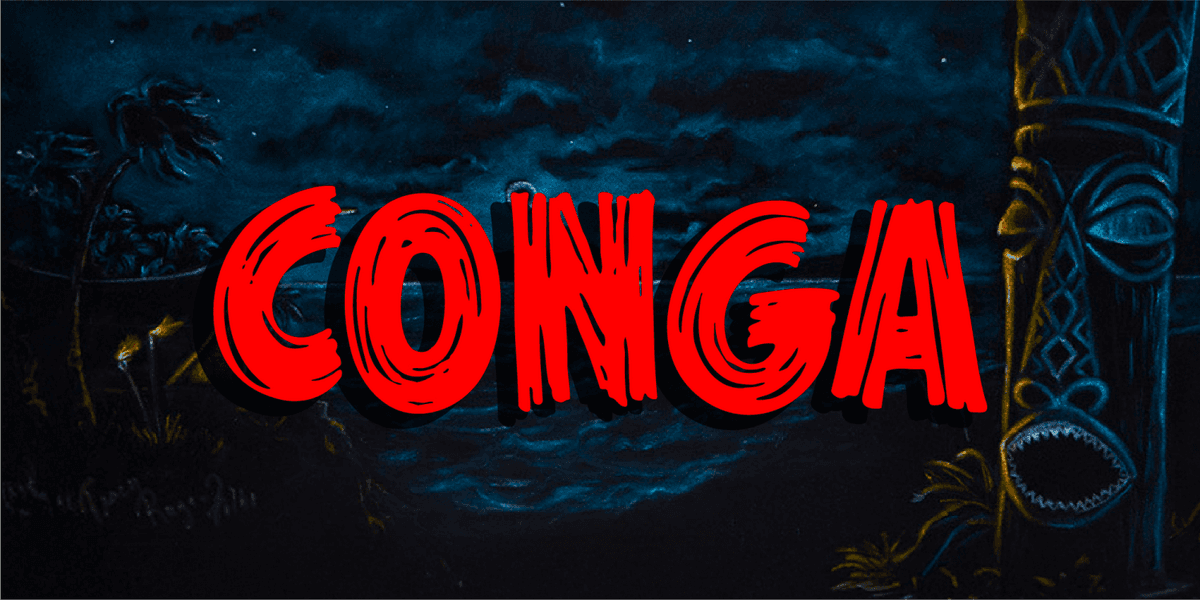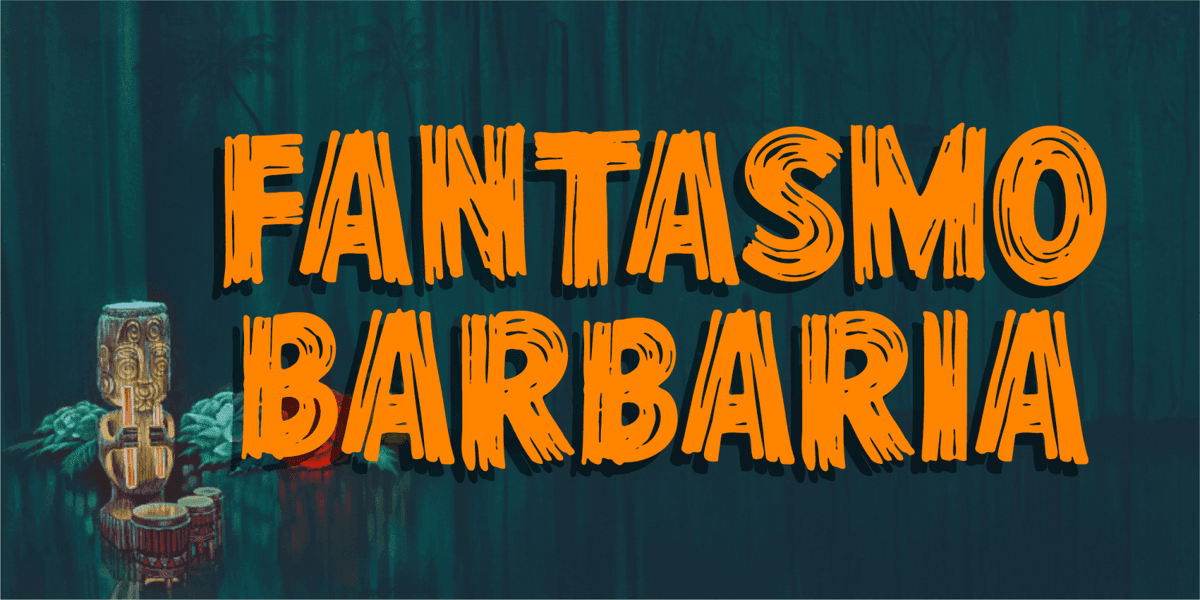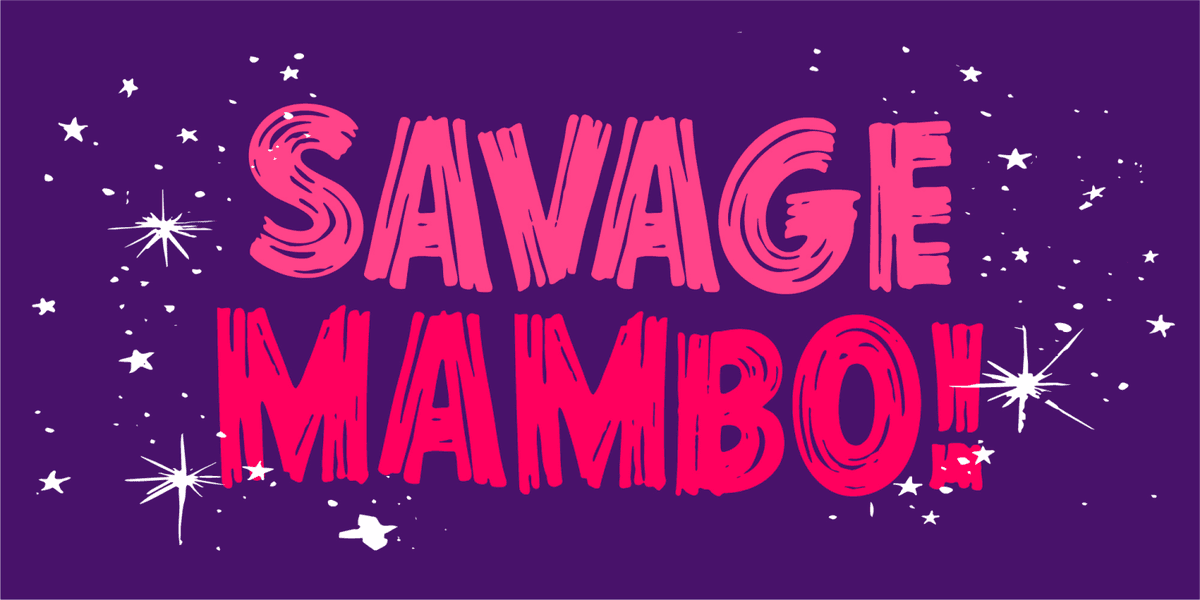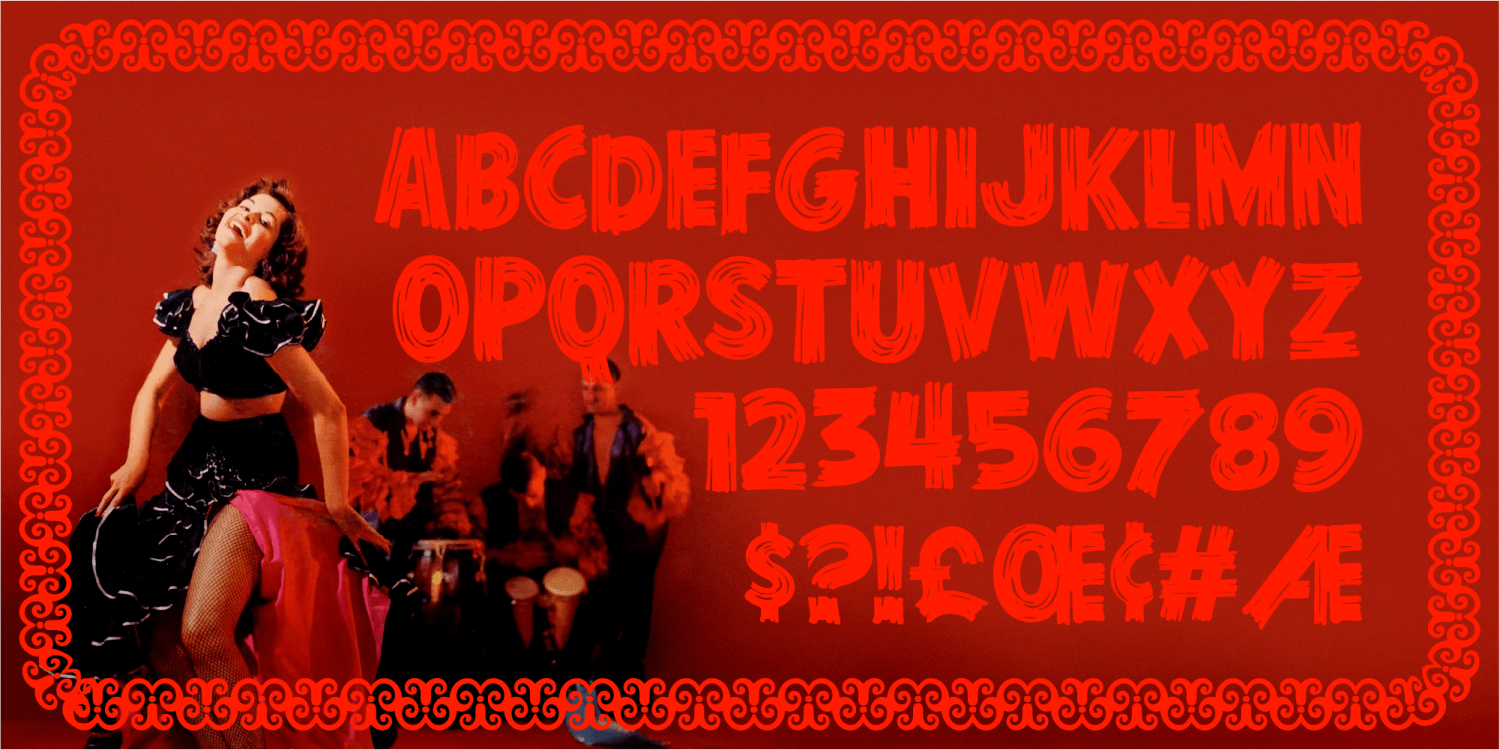
Conga is a rough-edged Polynesian-style font full of island swagger. It balances bold shapes with raw texture, giving it an earthy feel that’s perfect for tiki-themed designs, surf posters, album art, or anything that needs a touch of island attitude and handcrafted charm. Come on, shake your body baby, do the conga!